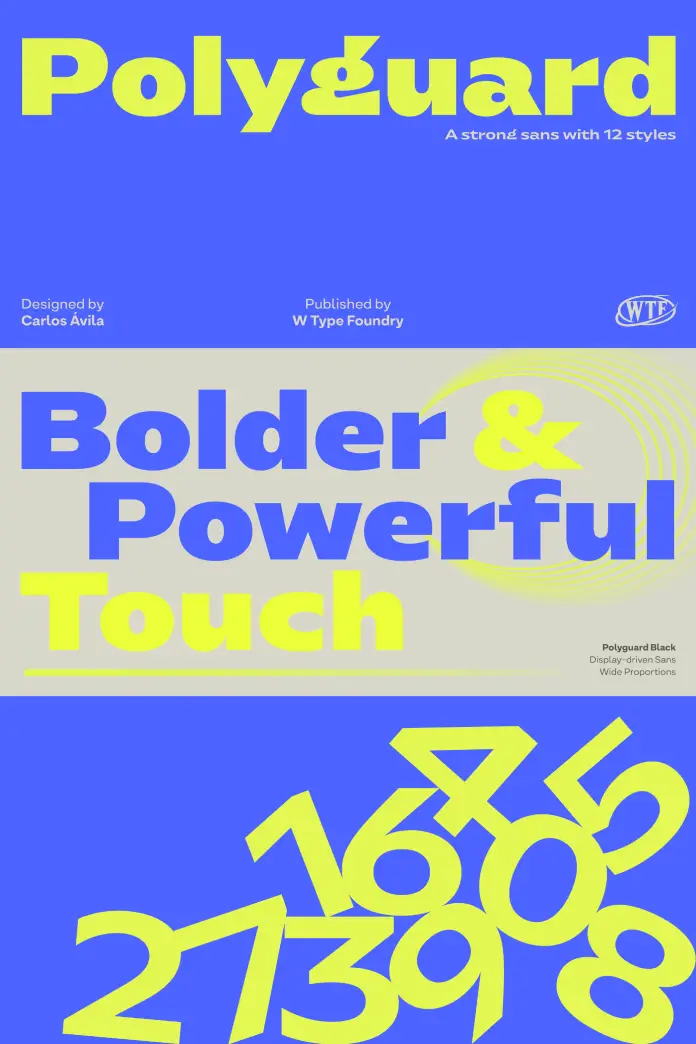
The Polyguard Font Family Brings Industrial Strength and Typographic Character Together
Some typefaces arrive quietly. The Polyguard font family is not one of them. Designed by Carlos Avila for W Type Foundry, Polyguard enters the display type scene with a kind of controlled aggression that feels both timely and deliberate. It carries industrial roots but refuses to stay mechanical. That tension — between structure and personality, between weight and agility — is exactly what makes this family worth talking about right now.
Display typography is having a moment. Brands want to say something louder than a wordmark alone can manage. Editorial designers push headline fonts to do conceptual work. Packaging designers need letterforms that hold authority at arm’s length. Polyguard was built for all of these moments, and it handles them without breaking a sweat.
So what exactly is the Polyguard typeface, and why does it work? Let’s get into it.
What Makes the Polyguard Typeface Different from Standard Industrial Sans Fonts?
The word “industrial” gets thrown around loosely in type design. Most so-called industrial fonts are simply wide, heavy, and structurally blunt. Polyguard earns the label differently. It grounds itself in industrial aesthetics — the sense of engineered precision, structural load-bearing, and purposeful mass — but it doesn’t stop there.
Carlos Avila built something more nuanced. The typeface uses vertical stroke terminals combined with slightly extended endings that generate visual tension at the letterform’s edges. This is not an accident or a stylistic flourish. It is a deliberate design decision that gives Polyguard a strong typographic identity without sacrificing legibility.
Think about what that actually means in practice. A font with too much personality at the terminal often loses readability at small sizes or in complex compositions. Polyguard manages the balance. The slightly wide proportions anchor each character on the baseline, giving the family its characteristic stability. Meanwhile, the extended terminals keep it from feeling static or generic.
This is a typeface that carries visual weight without feeling heavy-handed. That’s a harder balance to achieve than it looks.
The Role of Proportion in Polyguard’s Visual Identity
Proportion is arguably the single most important decision in any sans-serif display font. Too narrow and the letterforms feel compressed. Too wide and they dominate space in ways that resist flexible layout work. Polyguard lands in a slightly broader-than-neutral zone that I’d describe as assertive without being oversized.
This proportion gives headlines built with Polyguard an immediate visual presence. You notice them. Furthermore, the breadth of each character contributes to what I call the Structural Gravity Principle in type design — the idea that slightly wider proportions create a perceived center of mass that the eye trusts instinctively. Polyguard embodies this principle clearly and consistently across all six weights.
Polyguard Font Family: Six Weights, One Coherent Voice
The Polyguard font family ships with Thin, Light, Regular, Semibold, Bold, and Black cuts. Each weight arrives with a matching oblique. This is a thoughtful range for a display family. Many display typefaces sacrifice the lighter weights entirely, betting everything on heaviness. Avila chose differently, and that choice pays off.
The Thin and Light weights perform particularly well in editorial contexts where designers want the Polyguard character — those vertical terminals, the extended endings, the confident proportion — without the full visual mass of the Bold or Black. Used at large sizes in magazine layouts, they carry an architectural quality that heavier cuts can’t reproduce.
Conversely, the Bold and Black weights do what display fonts are supposed to do at their most essential: they command attention. Applied to product packaging, signage, or brand identity systems, they project exactly the kind of authority that makes a visual identity memorable.
Why Matching Obliques Matter More Than Most Designers Realize
Many foundries treat the oblique as an afterthought. They mechanically slant the upright and ship it. W Type Foundry took a different approach with Polyguard. Each oblique accompanies its weight as a genuinely useful companion, not a technical obligation.
For commercial and editorial work, this matters. The oblique extends the typographic range of the family, allowing designers to introduce rhythm, emphasis, and hierarchy without switching to a different typeface entirely. This is what I call the Internal Hierarchy Framework — building emphasis through weight and angle variation within a single type family rather than importing contrast from outside it. Polyguard supports this approach across all six weights.
Where the Polyguard Typeface Performs Best
Polyguard was designed specifically for high-visibility environments. The foundry describes it as ideal for branding, packaging, signage, editorial work, and commercial graphics. That’s a broad mandate, and Polyguard actually delivers on it — which is rarer than it sounds.
How should I set tracking when using Polyguard for headlines?
At large display sizes, a slight reduction in tracking — typically between -10 and -20 units depending on the application — produces a more cohesive word shape and amplifies the font’s natural sense of visual stability. At smaller sizes or in signage applications, standard or slightly positive tracking improves readability by giving the vertical terminals adequate space to register clearly.